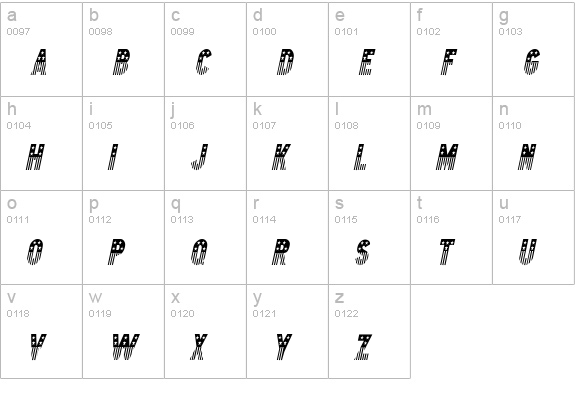
Bunting 2Condensed Italic is a distinctive, condensed-width, italic variant in the Bunting typeface family \xE2\x80\x94 well suited to design and typography projects.
Bunting 2Condensed Italic font is a sleek and modern typeface that exudes elegance and sophistication. Its slanted italic design adds a touch of flair and style to any project. The condensed form of the font allows for efficient use of space without compromising on readability. This font is perfect for creating eye-catching headlines, logos, and branding materials. Its versatility makes it suitable for a wide range of design projects, from business cards to websites to advertisements. Best of all, Bunting 2Condensed Italic font is available for free download at FontsMarket.com. Don't miss out on the opportunity to elevate your designs with this stunning and professional font. Download it today and see the impact it can make on your next project.